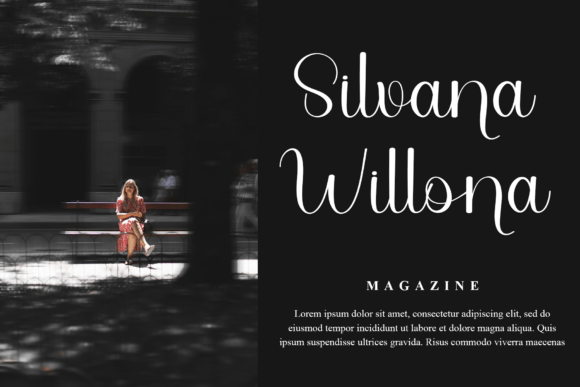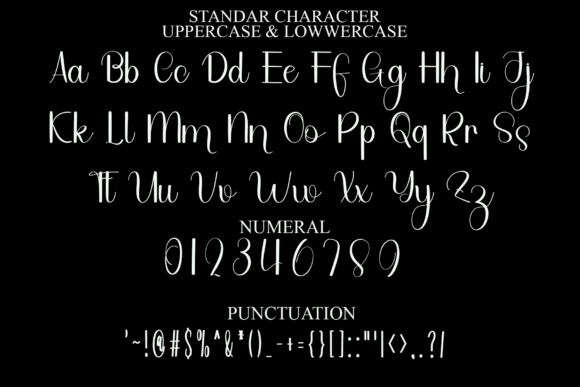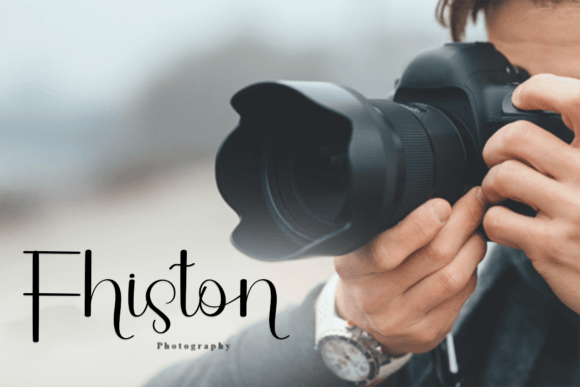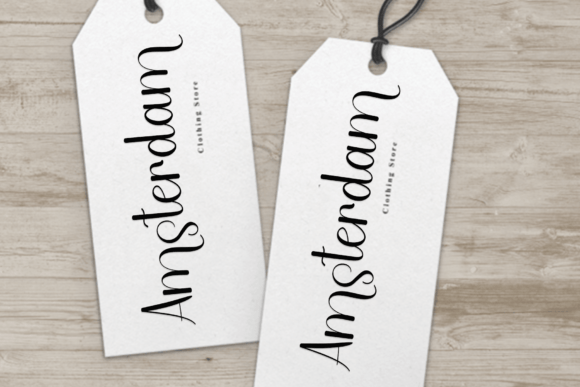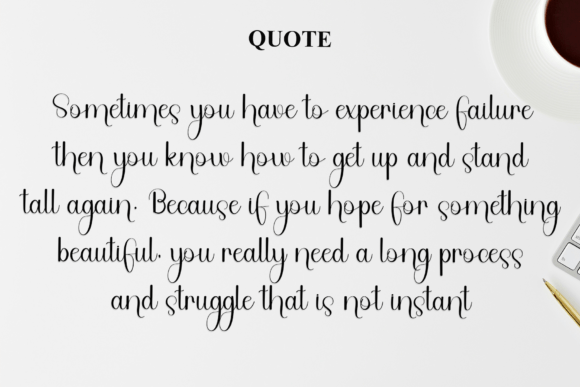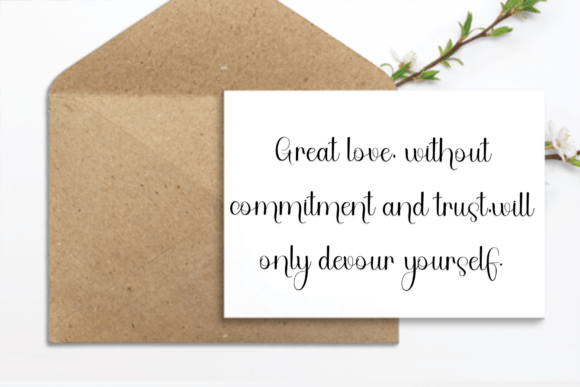
Fishing for Inspiration
As a designer, there’s nothing quite like the thrill of stumbling upon a font that perfectly captures the essence of a project. For me, it was a font called Fishing Font that really hooked me in – its playful, hand-drawn aesthetic instantly evoked a sense of warmth and friendliness that I just couldn’t get enough of.
Fishing Font is a casual, creative font designed to add a relaxed and approachable feel to any design. Its round, playful strokes make it perfect for personal projects, invitations, and social media graphics. Whether you’re working on a project that needs a fun and unique touch or simply want to add some personality to your designs, Fishing Font is a valuable addition to any designer’s toolkit.
Fishing Font Key Features
- Unique Character Set: Fishing Font features a unique set of fishing-related glyphs, including fish, hooks, nets, and other aquatic symbols, making it perfect for designers and artists working on fishing-related projects.
- Customizable: Fishing Font includes a range of customizable options, including ligatures, swashes, and alternate characters, giving designers the flexibility to create unique and personalized designs.
- High-Quality Design: Fishing Font is carefully designed to ensure high-quality rendering, with precise lines, smooth curves, and a unique aesthetic that sets it apart from other fonts.
Fishing Font Review
I recently had the chance to work with “Fishing Font” and I must say it’s a mixed bag. Here are my thoughts:
- Unique aesthetic: The font has a distinctive, hand-drawn feel that’s perfect for creative projects.
- Good for titles and headings: The font is bold and attention-grabbing, making it ideal for titles and headings.
- Supports various languages: Fishing Font has a wide language support, making it a great option for multilingual projects.
- Limited legibility: At smaller font sizes, the font can become difficult to read, especially in body text.
- Not suitable for body text: The font is best used for titles and headings, as it can be overwhelming in larger blocks of text.
- Some character sets are lacking: While the font supports many languages, it’s missing some essential characters and symbols.
Fishing Font is a unique and eye-catching font that’s perfect for creative projects. While it has some limitations, it’s a great option for titles and headings. However, it’s not suitable for body text or projects that require a high level of legibility.
Tips for Getting the Most Out of Fishing Font
Use Fishing Font to add a playful and whimsical touch to your designs.
Combine Fishing Font with other creative elements to create a unique and eye-catching visual identity.
Fishing Font is perfect for:
Designing fishing-related materials, such as logos, posters, and business cards.
Creating playful and engaging content for social media and marketing campaigns.
Adding a touch of personality to business presentations and reports.
Alternatives to Fishing Font
Great Vibes is a beautiful, handwritten font perfect for creating a friendly and approachable atmosphere. It’s ideal for use in advertising, social media, and other applications where you want to convey a sense of warmth and personality. Compared to Fishing Font, Great Vibes has a more elegant and refined feel, making it suitable for a wider range of design projects.
Carolyna Pro is a modern, cursive font that exudes sophistication and elegance. It’s perfect for use in high-end branding, luxury packaging, and other applications where you want to convey a sense of luxury and refinement. Compared to Fishing Font, Carolyna Pro has a more polished and refined feel, making it suitable for more formal design projects.
The recommended font size for optimal readability of Fishing Font is between 12pt and 24pt. However, this may vary depending on the intended use, the size of the text, and the resolution of the output device. For best results, use the font size that works best for your specific application and audience.